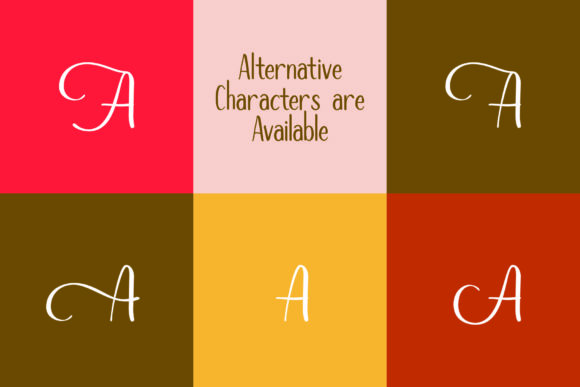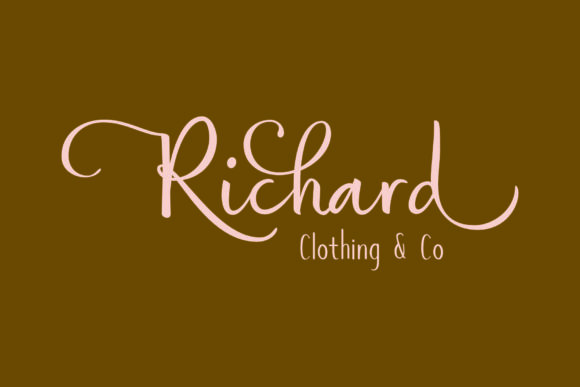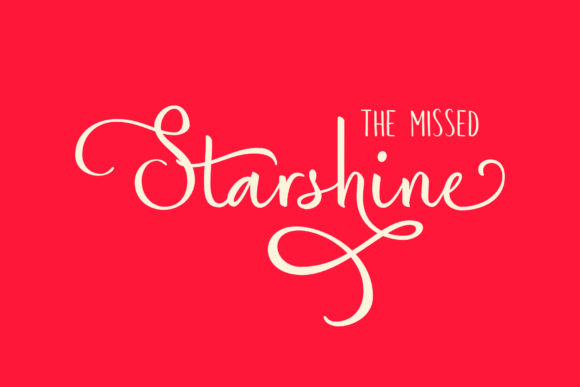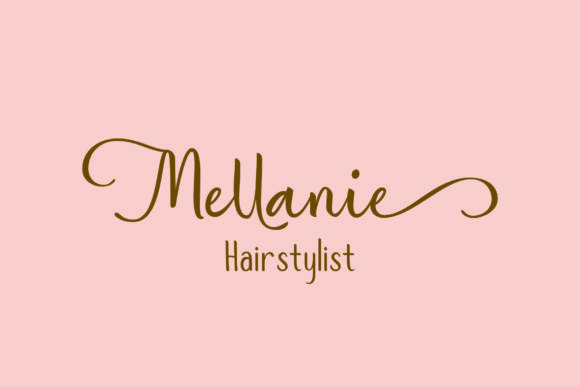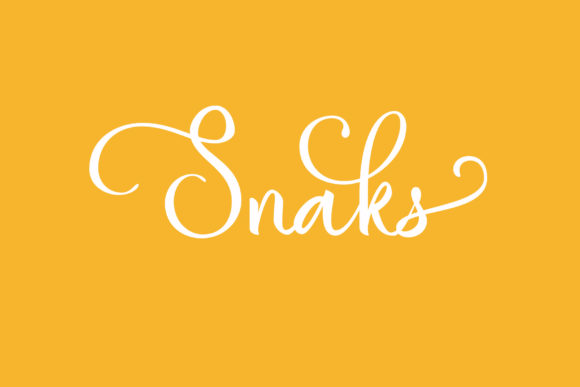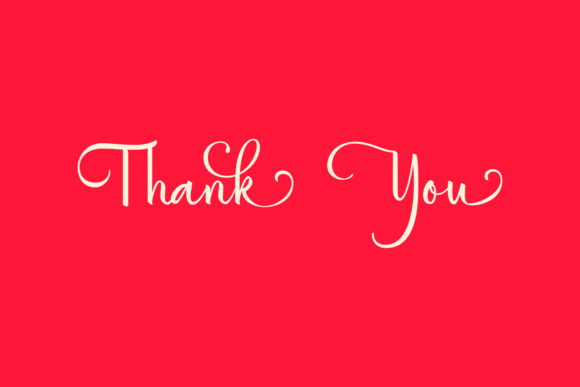
The Perfect Blend of Elegance and Whimsy: Introducing Autumn Mood Font
As a designer, have you ever found yourself pouring over a blank canvas, searching for the perfect font to bring your vision to life? The right font can make all the difference, elevating your design from ordinary to extraordinary. For me, it’s that magical moment when the words start flowing, and the perfect font suddenly appears – like a ray of sunshine on a crisp autumn morning.
Enter Autumn Mood Font, the perfect blend of elegance and whimsy. This stunning handwritten font is designed to elevate your design projects to new heights, whether you’re working on branding, wedding designs, invitations, logos, or anything in between. With its unique charm and sophistication, Autumn Mood Font is the perfect addition to any designer’s toolkit.
Autumn Mood Font Key Features
- Font Style: Script, Handwritten, and Elegant
- Unique Characteristics: Whimsical, cursive design with a natural, organic feel
Autumn Mood Font Review
As a designer, I was excited to try out the Autumn Mood Font, and here’s my honest review.
The Autumn Mood Font has a lovely, organic feel to it. The curved lines and soft shapes evoke a sense of coziness and warmth, perfect for fall-themed designs. The font is also highly customizable, with a wide range of weights and styles to choose from.
- Highly customizable with various weights and styles
- Lovely, organic feel that’s perfect for fall-themed designs
- Works well for both digital and print designs
While the Autumn Mood Font is a great choice for fall-themed designs, it may not be the best option for other types of projects. The font’s unique style may not be suitable for more formal or professional designs, and it may also be difficult to read in small sizes.
- May not be suitable for formal or professional designs
- Difficult to read in small sizes
- May not be the best choice for designs that require a more modern or sleek look
The Autumn Mood Font is a great choice for designers who want to add a touch of warmth and coziness to their fall-themed designs. While it may have some limitations, the font’s unique style and high customizability make it a great option for the right project.
Some tips for getting the most out of the Autumn Mood Font include:
Using it for seasonal designs, such as Thanksgiving or Halloween invitations.
Combining it with warm colors and fall-themed images for a cohesive look.
Using it for titles or headings to add a touch of autumnal flair.
Alternatives to Autumn Mood Font for Designers
Copperplate
Copperplate is a elegant, cursive script font suitable for invitations, wedding stationery, and formal events. It has a more refined and sophisticated look compared to Autumn Mood Font, which is more rustic and natural. Copperplate is ideal for creating a luxurious and high-end feel.
Playfair Display is a luxurious, high-end serif font perfect for magazine headlines, luxury branding, and high-end fashion. It has a more dramatic and elegant look compared to Autumn Mood Font, which is more subtle and earthy. Playfair Display is ideal for creating a sense of sophistication and glamour.
Great Vibes is a modern, elegant script font suitable for fashion branding, beauty packaging, and lifestyle magazines. It has a more polished and refined look compared to Autumn Mood Font, which is more rustic and natural. Great Vibes is ideal for creating a sense of modernity and sophistication.